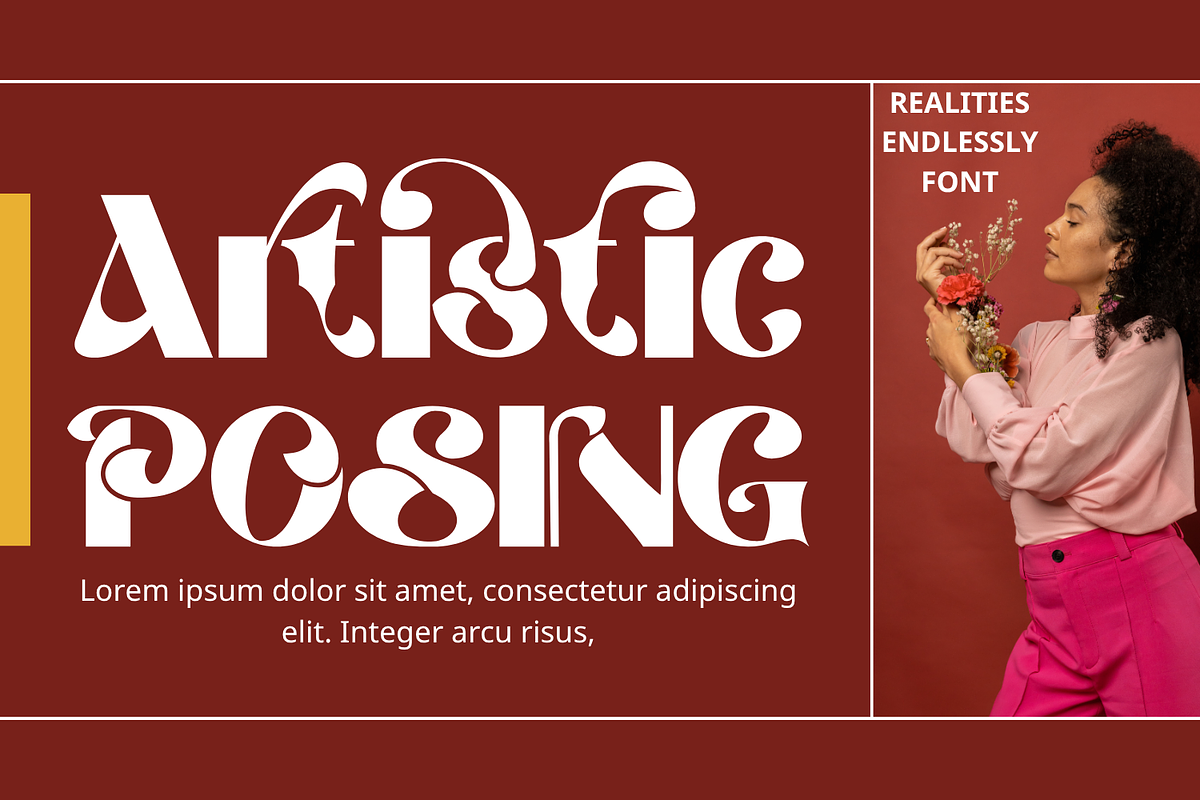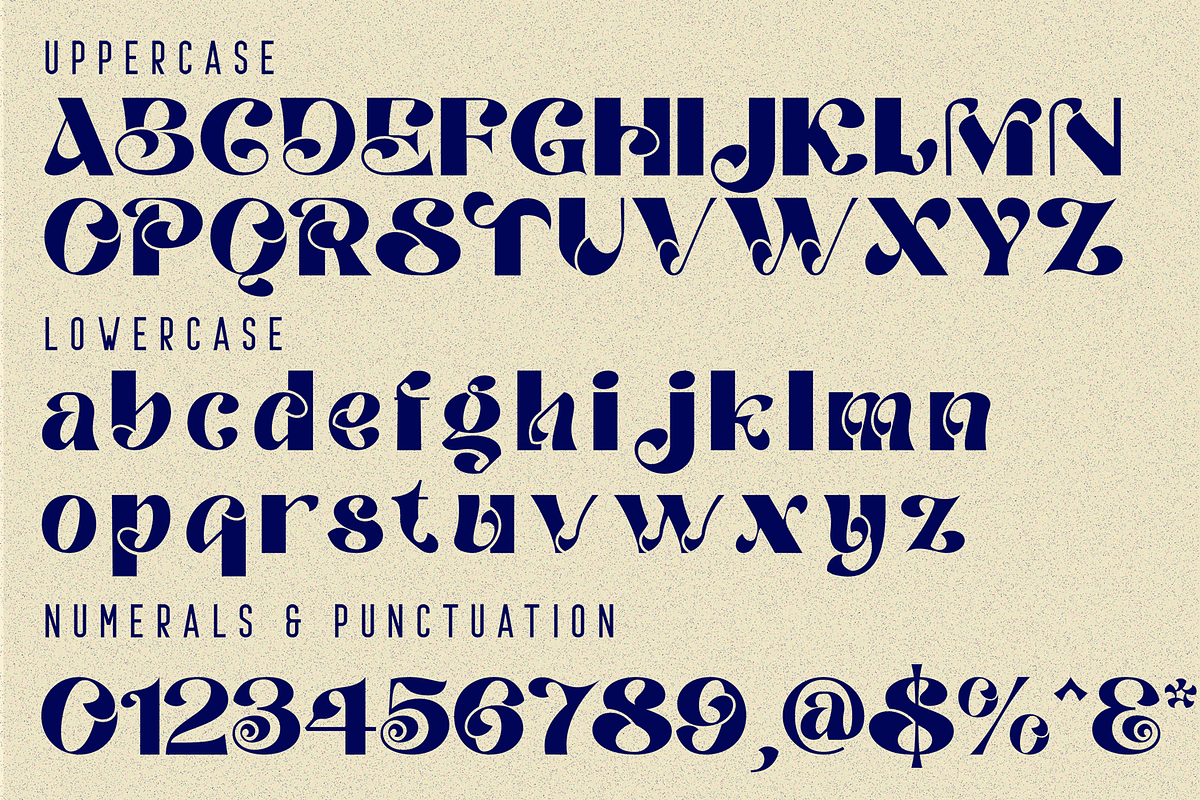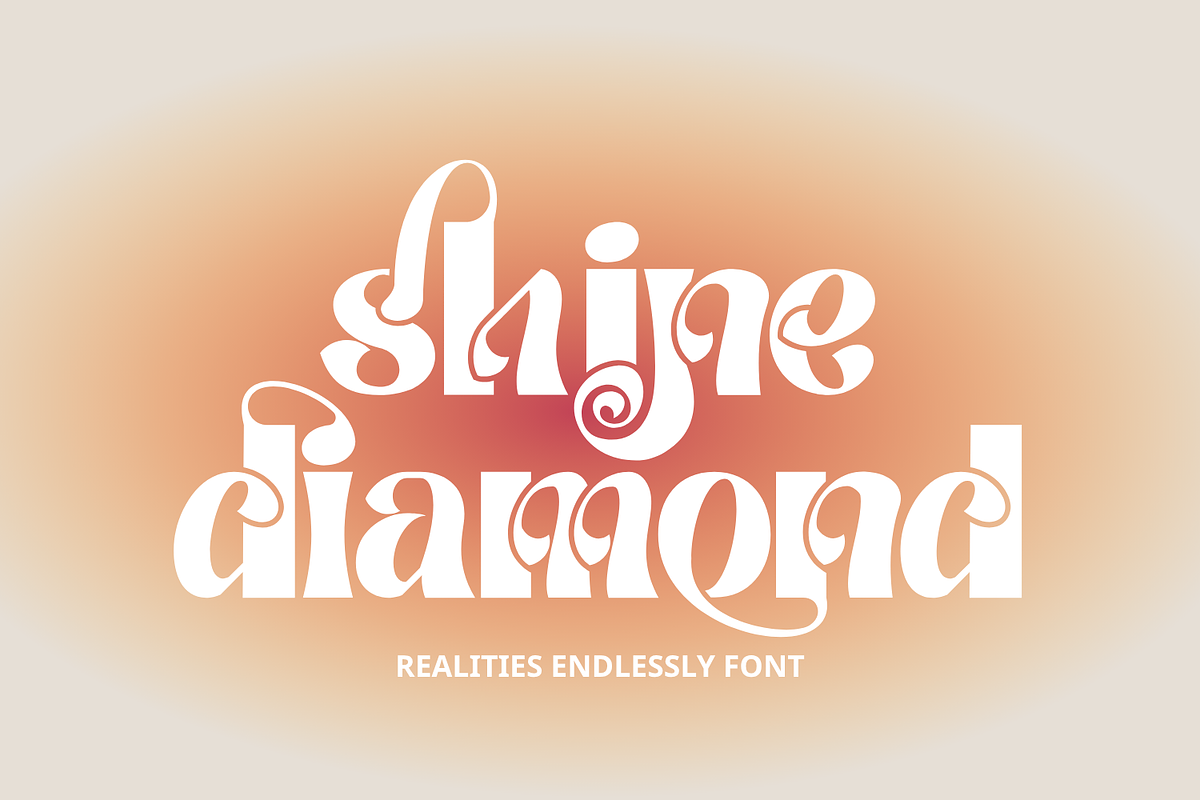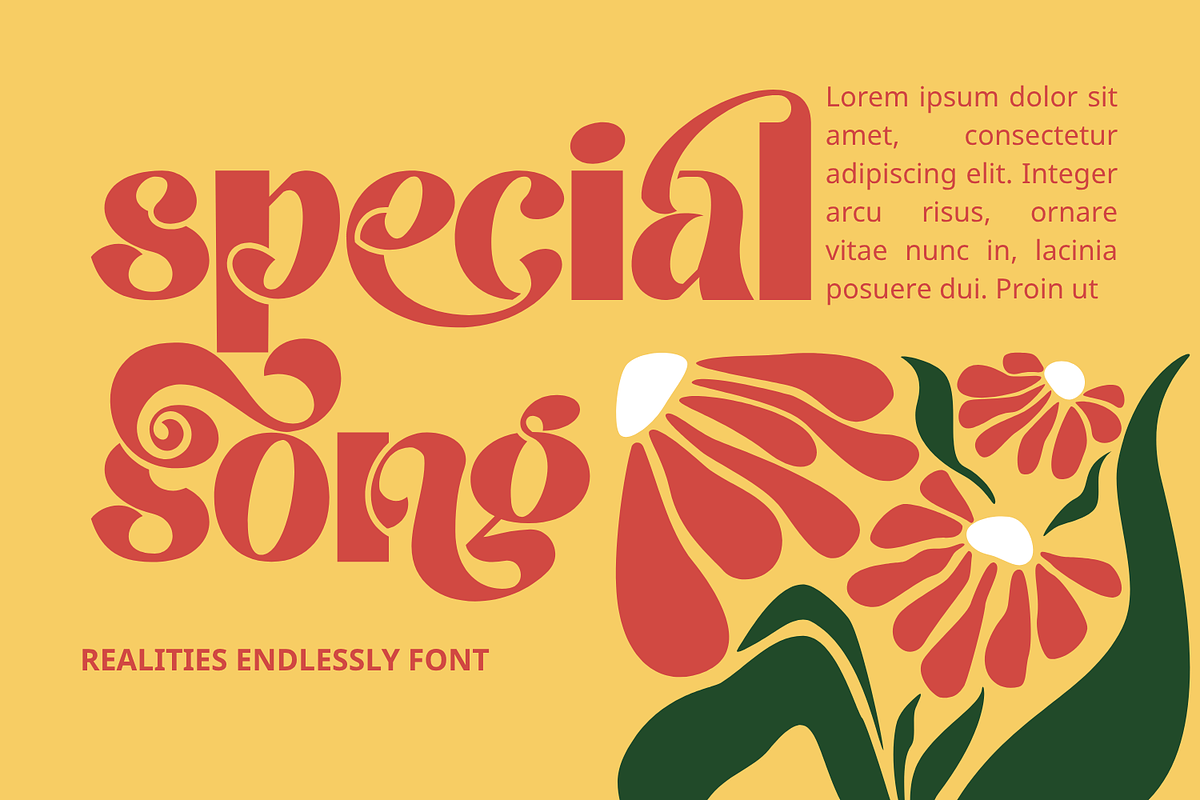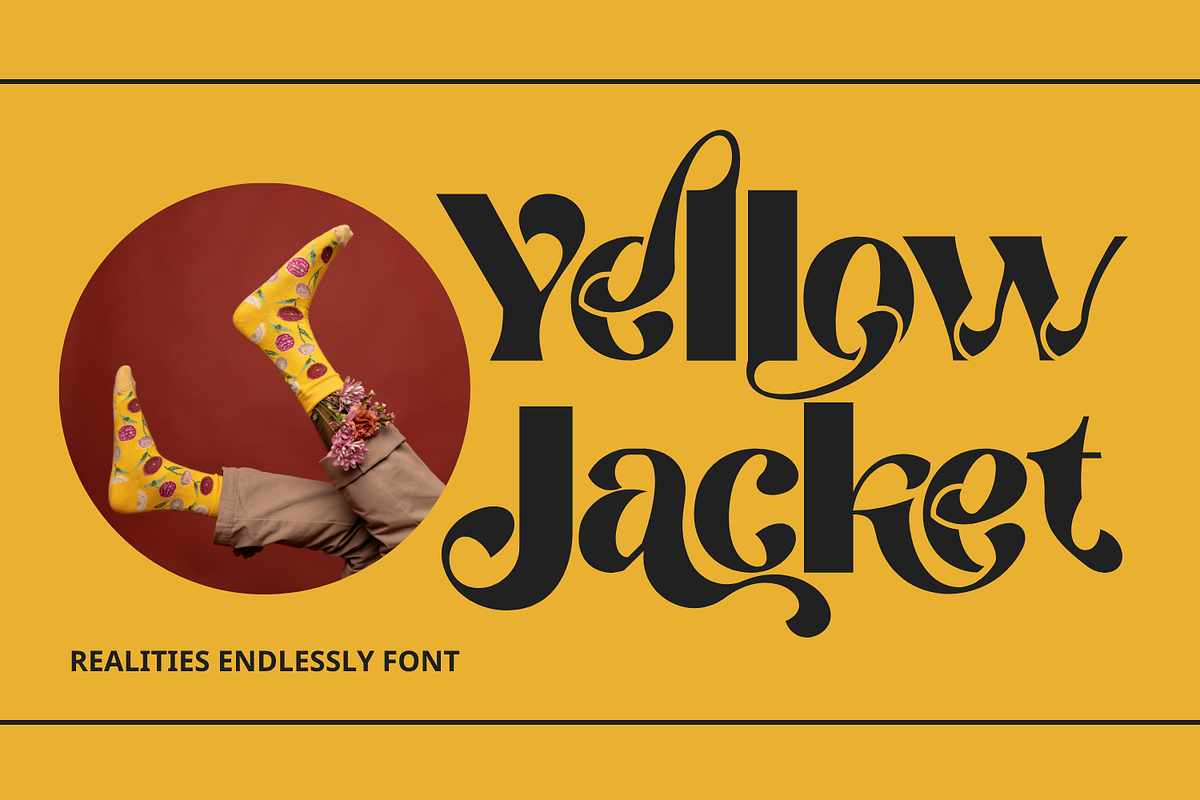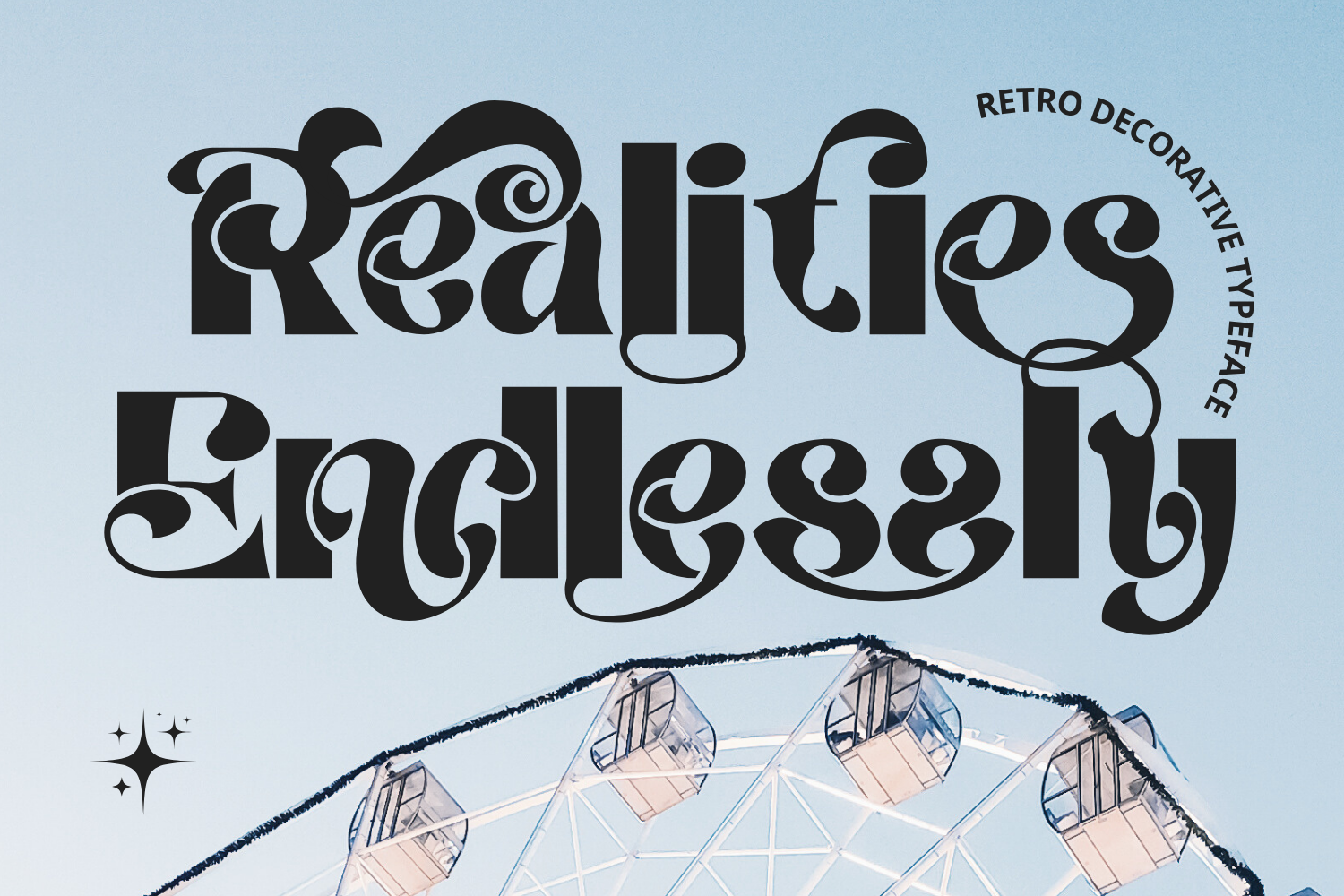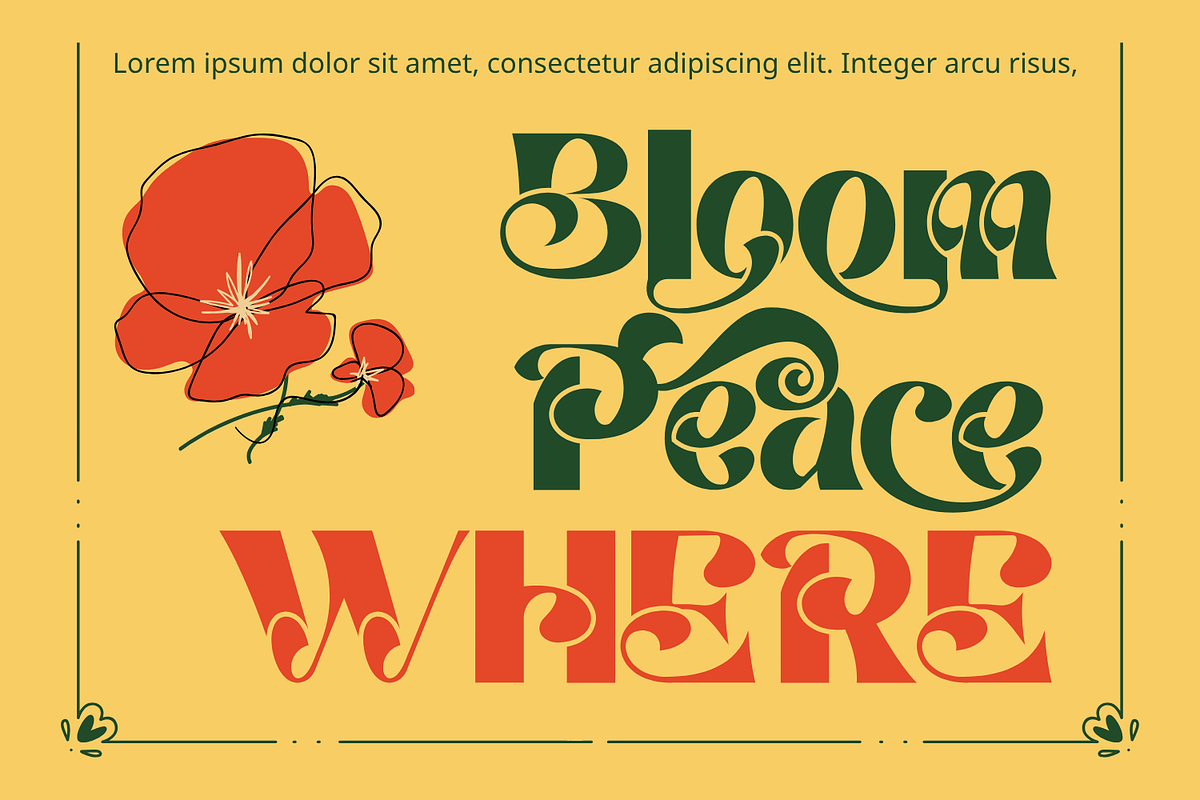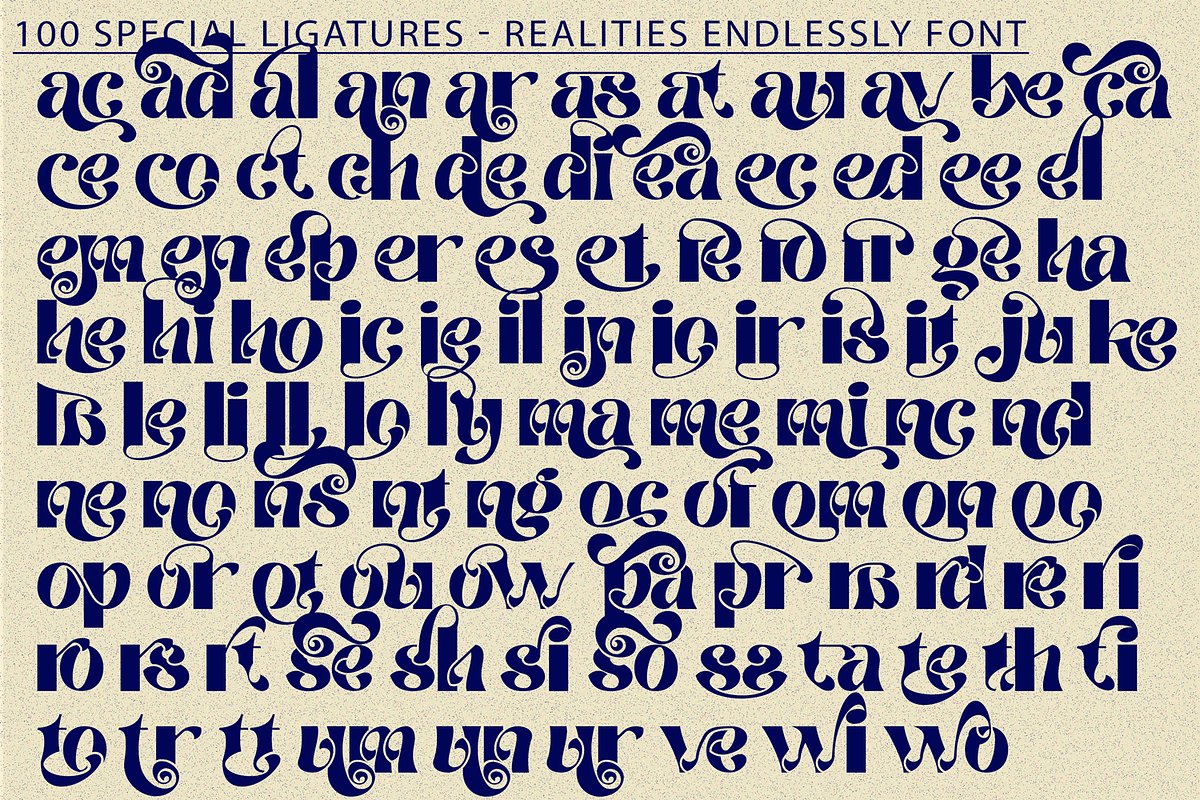
Realities Endlessly - Elegant Font
Realities Endlessly - Elegant Font, an elegant Decorative Sans-Serif Display Font crafted to bring sophistication and artistic charm to your designs. Its graceful curves, bold contrasts, and ornamental details make it perfect for luxurious branding, editorial titles, invitations, and high-end packaging.
- Uppercase & Lowercase Letters
- Around 100 Special Ligatures for creative typography
- Numerals & Punctuation for versatile use
- Accented Characters supporting multiple languages
About 100 ligatures combined with Stylistic Alternates Font:
ac ad al an ar as at au av be ca ce ch co ct de di ea ec ed ee el em en ep er es et fe fo fr ge ha he hi ho ie ic il in io ir is it ju ke la le li ll lo ly ma me mi nc nd ne ng no nt ns oc of om on oo op or ot ou ow pa pr ra rd re ri ro rs rt se sh si so ss st ta te th ti to tr tt um un ur ve wi wo